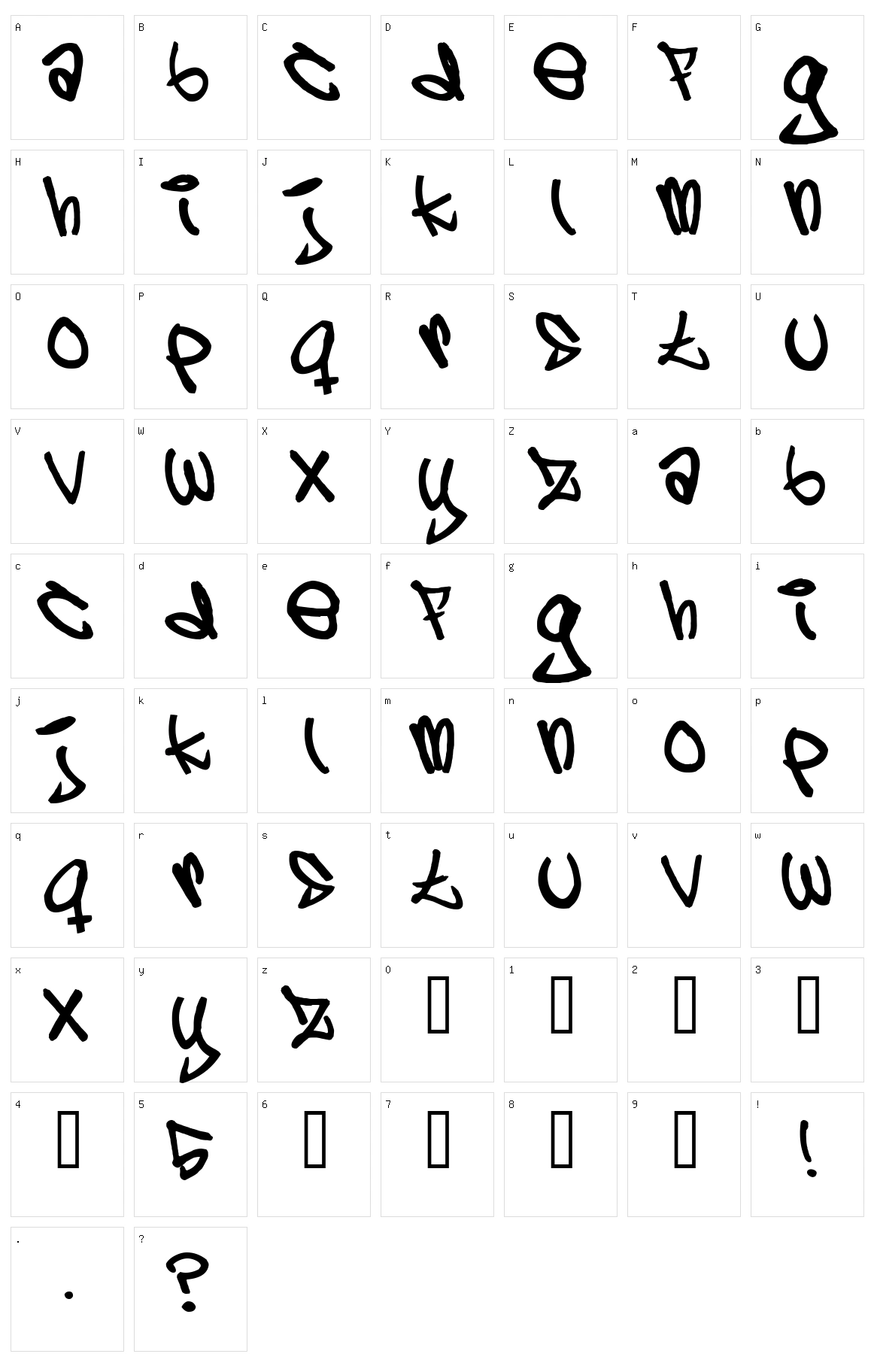
This is a freeware graffiti-inspired font.
I prefer a high point-size when using this font (72 or higher).
The font only has lower case characters, so make sure capslock isn´t on when using it.